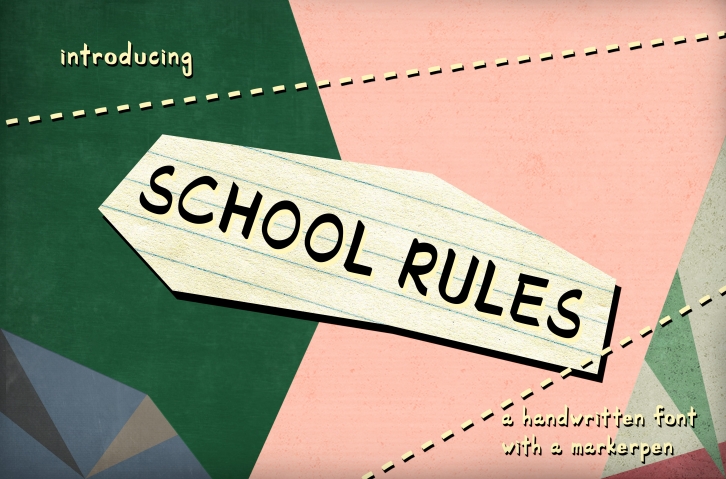
School Rules is a handwriting font which is inspired by writing with a marker pen. It gives a young and interesting personalities which is perfect for your design needs.